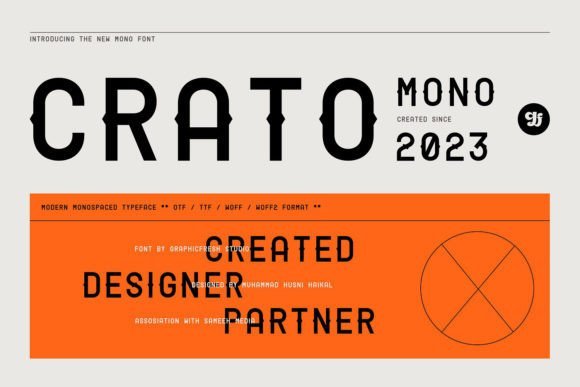
Timeless Design Meets Modern Style
Remember the feeling of typing away on an old typewriter, the tactile sensation of keys clacking beneath your fingers, and the distinct sound of the carriage return? For many creatives, this nostalgic experience sparks a desire to revisit the past while still embracing the present. It’s this same sentiment that inspired the creation of the Crato Mono Font, a modern monospaced font that effortlessly blends classic and contemporary design elements.
As a designer, you’re constantly on the lookout for fonts that evoke a sense of nostalgia without feeling outdated. That’s where the Crato Mono Font comes in – a versatile and distinctive sans serif font that adds a touch of vintage charm to any project. Whether you’re crafting a retro-inspired logo or building a stylish website, this font is sure to elevate your design to the next level.
- Unique Characteristics: Geometric monospaced font with a modern and clean design, suitable for coding, programming, and terminal applications
Designer Review: Crato Mono Font
Overall, I was impressed with the clean and modern aesthetic of Crato Mono Font. It’s a great addition to any design project that requires a monospaced font. ✨
- Highly legible, even at small font sizes
- Great for coding, terminal interfaces, and other technical applications
- Works well in both digital and print media
- Stylish and modern design that’s perfect for minimalist designs
One thing I noticed was that the font family is a bit limited, with only a few weights and styles available. This might not be a major issue for most designers, but it’s worth noting if you’re looking for a more extensive font family. ⚠️
Overall, I would recommend Crato Mono Font for designers who need a clean, modern, and highly legible monospaced font. While it may not be the most extensive font family, it’s a great choice for technical applications and minimalist designs. ✨
Getting the Most Out of Crato Mono Font
Crato Mono font is a monospaced font, making it ideal for coding and technical writing. To get the most out of it, use it for:
1. Code snippets and programming examples.
2. Technical documentation and user manuals.
3. Quotes and pull-quotes.
Crato Mono font is commonly used in:
1. Coding and programming projects.
2. Technical writing and documentation.
3. Minimalist designs and websites.
Alternatives to Crato Mono Font for Designers
The Crato Mono Font is a popular monospaced sans-serif font, but sometimes designers may need alternatives for specific projects. Here are a few options:
Comparison to Crato Mono Font: Inconsolata has a more classic design, while Crato Mono Font has a more modern design. Inconsolata is a better choice for projects that require a more timeless design, while Crato Mono Font is a better choice for projects that require a more modern design.